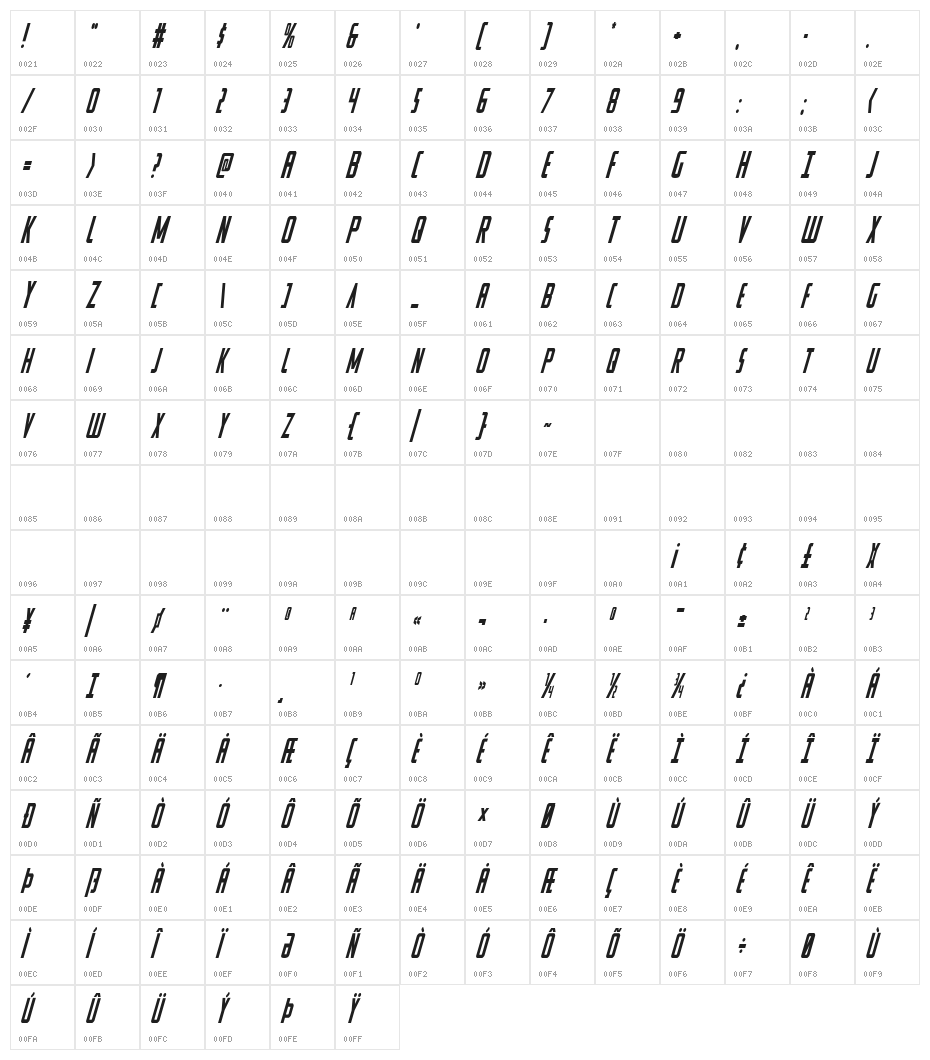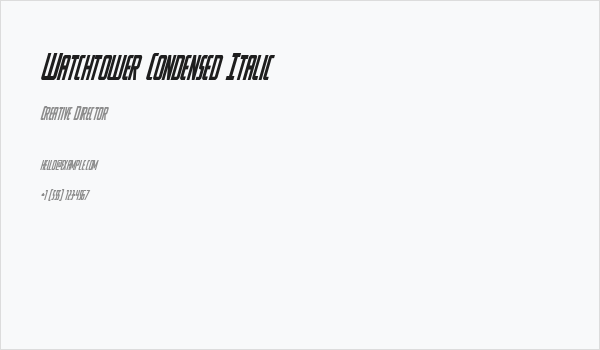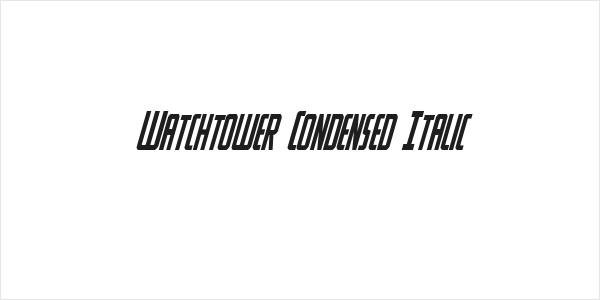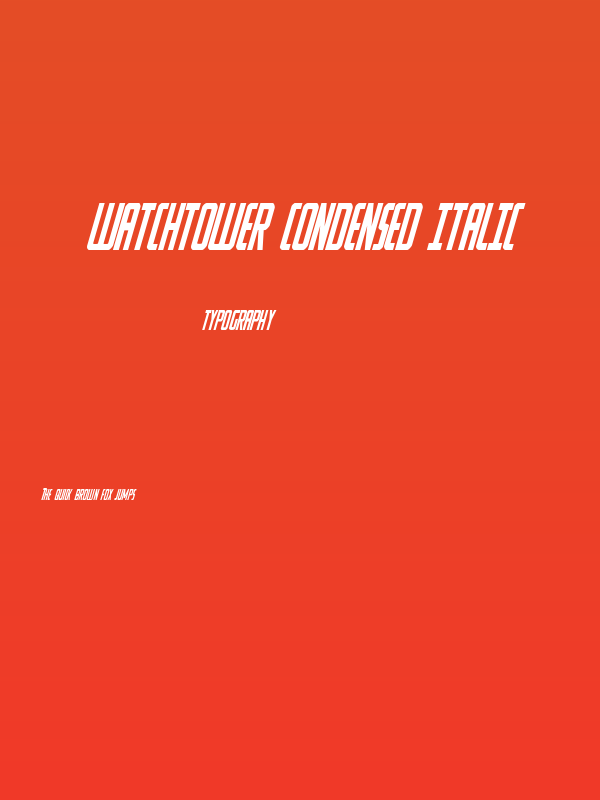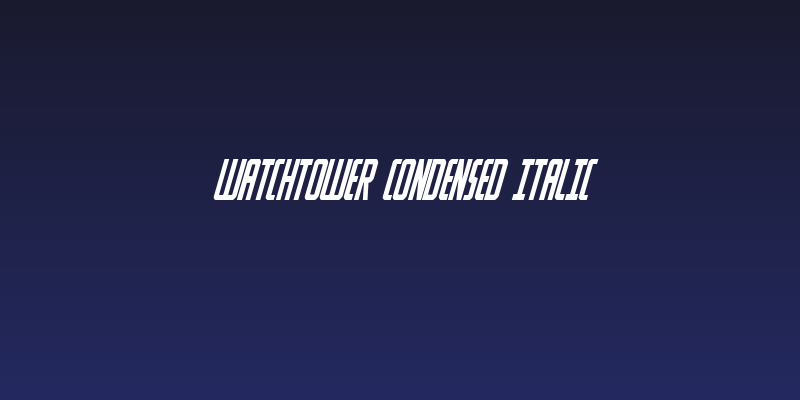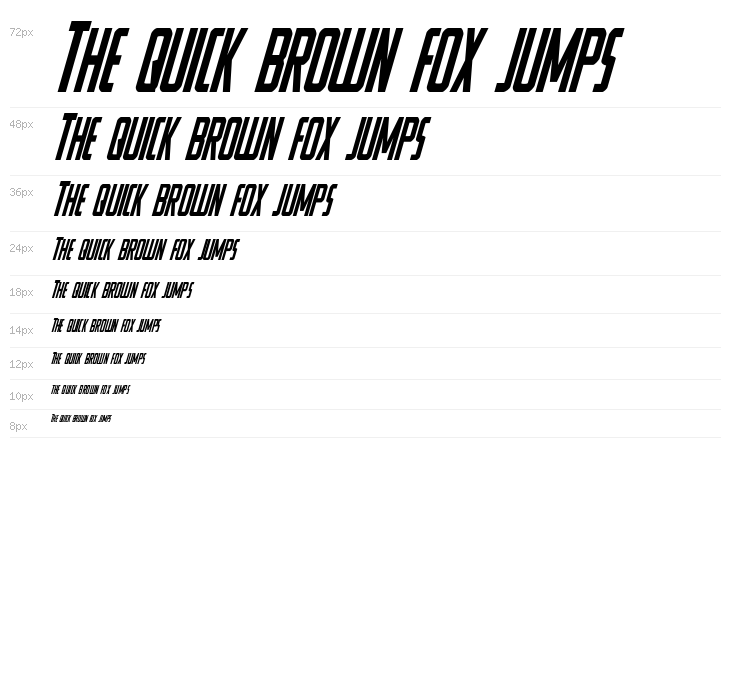
Watchtower Condensed Italic Font
Watchtower Condensed Italic Description
This font features a bold and dynamic style with a condensed and italicized form. The characters are elongated and slanted, giving a sense of movement and urgency. The uppercase letters are tall and narrow, while the lowercase letters maintain a consistent height, creating a cohesive look. The numbers and special characters follow the same condensed and italicized style, ensuring uniformity across all glyphs. The font's sharp angles and clean lines make it suitable for modern and edgy designs.
| Proposed Projects | Ideal for sports branding, dynamic posters, edgy advertisements, and modern web design. |